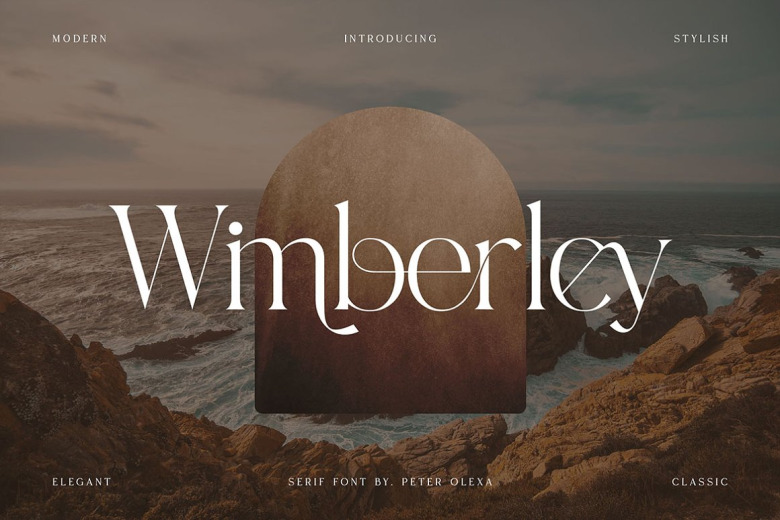
Wimberley Font
Wimberley – a Serif Font, trendy and modern. Wimberley font is elegant to the extreme and represents perfect class. Can be used in any brand identification project as well. A large supply of alternates and ligatures will assist you in creating original logos that are utterly unique. Help to provide the vital distinction which makes people feel they receive value for money at a glance.
Wimberley Serif Font